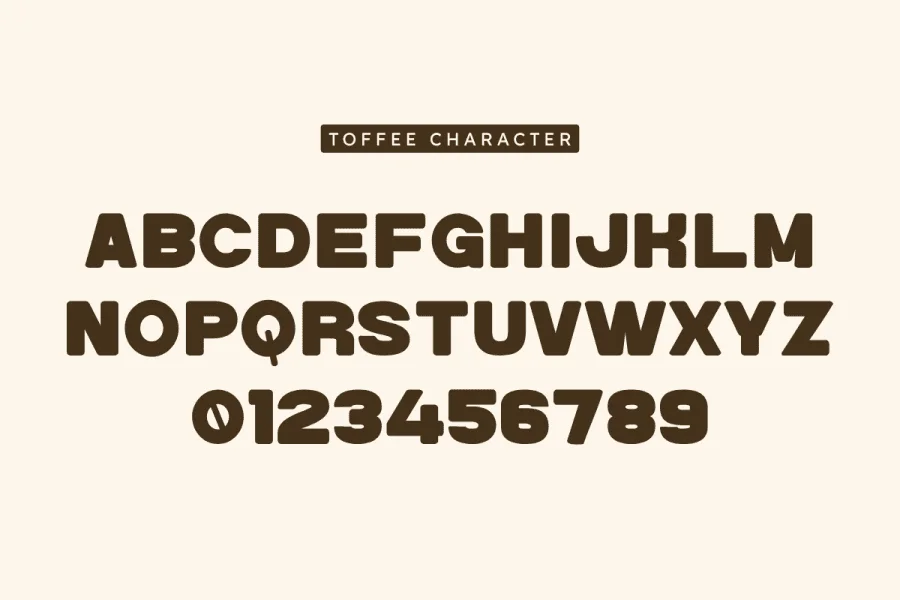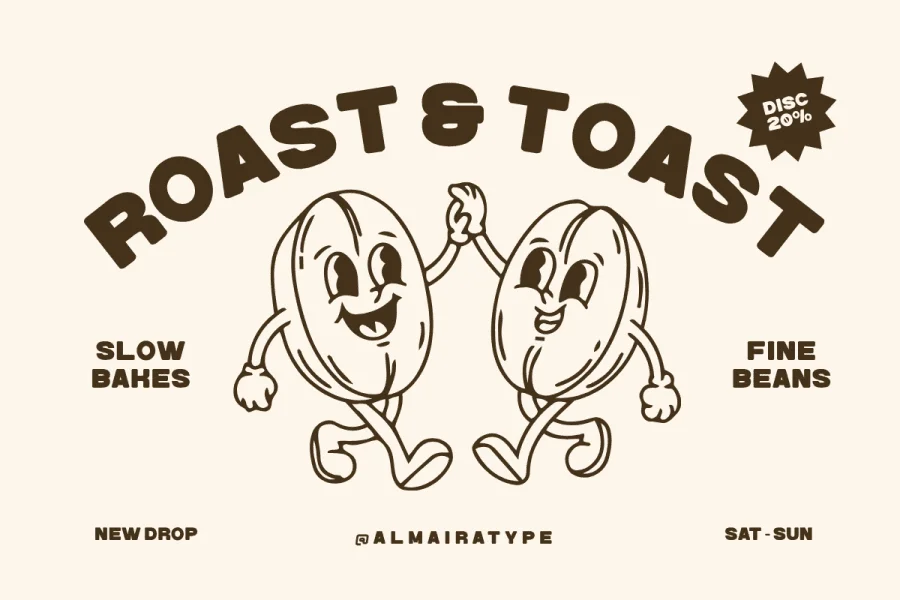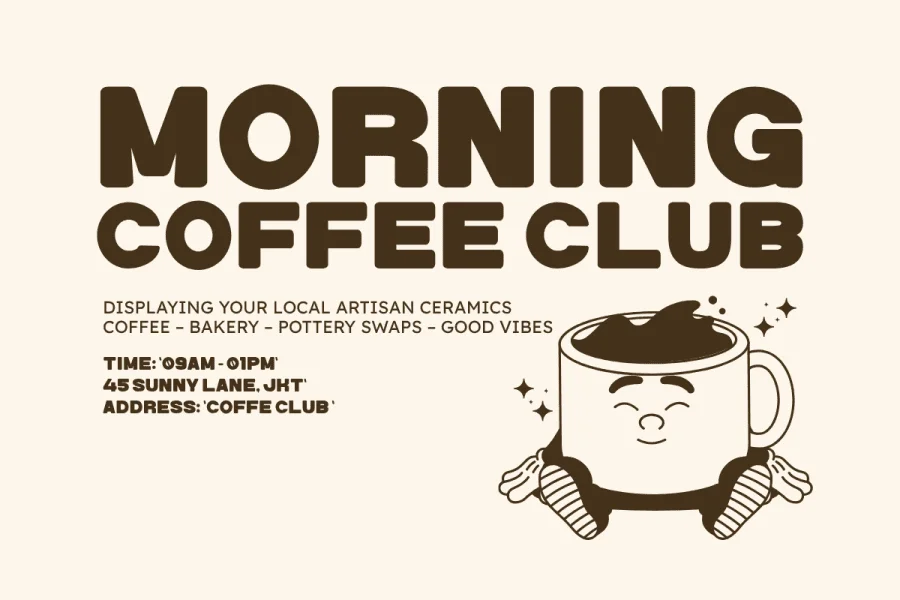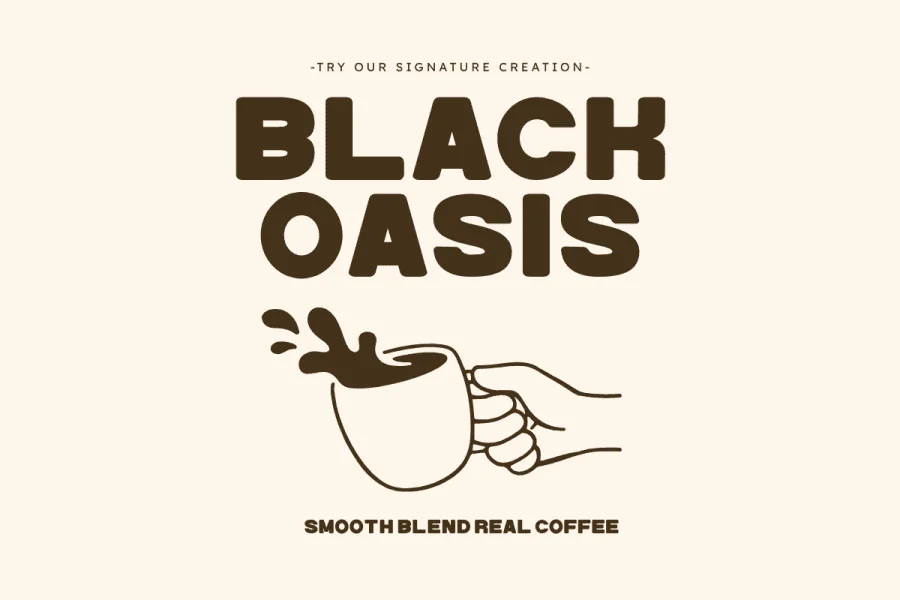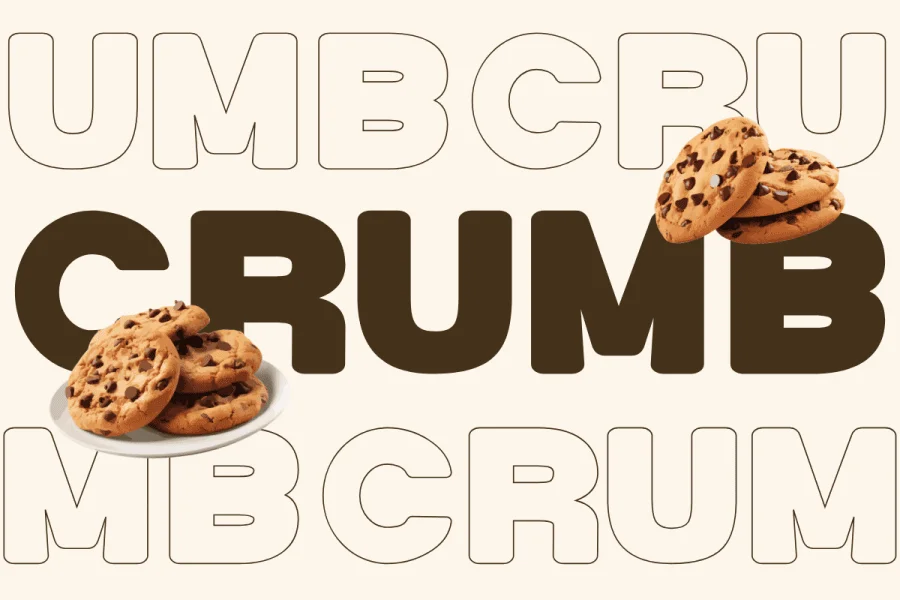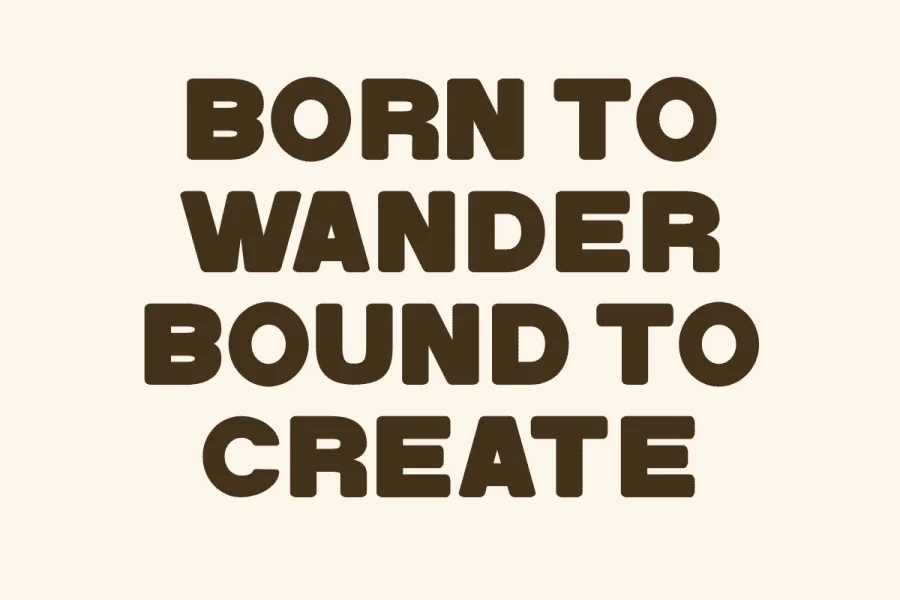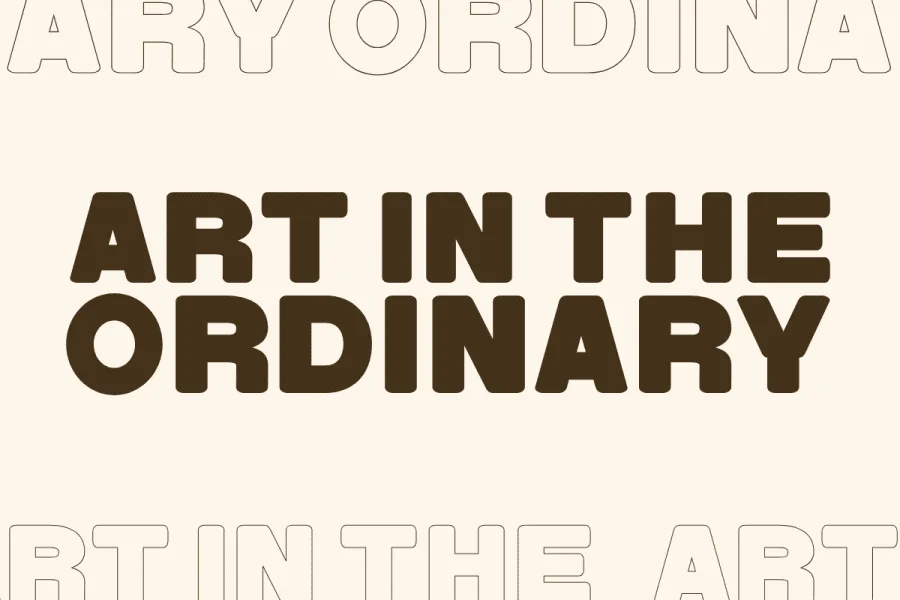
Toffee is an ultra-bold, rounded sans-serif display typeface that exudes a warm, retro-inspired charm. Characterized by its low-contrast, thick strokes and pillowy, softened terminals, the letterforms present a heavy, solid texture with a friendly and approachable cadence. The uppercase letters feature wide, generous proportions and a stable, grounded structure, while the overall design maintains a playful, organic rhythm that feels hand-carved yet structurally sound.
This typeface is exceptionally well-suited for casual branding, packaging design, and expressive display use. Its chunky, tactile presence makes it a natural fit for coffee shop identity systems, bakery logos, artisanal food packaging, and merchandise. Toffee shines in large-scale applications such as poster headlines, book covers, and social media graphics where a sense of comfort, nostalgia, and bold personality is desired.